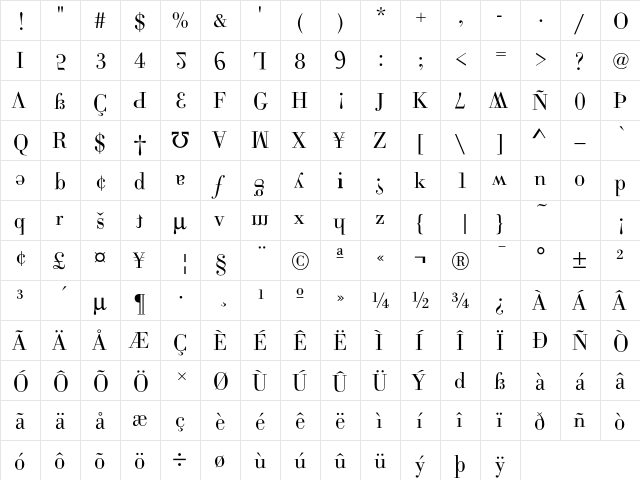
Doubletake Regular
Design Context for Doubletake Typeface
Doubletake takes a measured approach to typography — its balanced proportions and neutral character make it a reliable workhorse for both digital and print work.